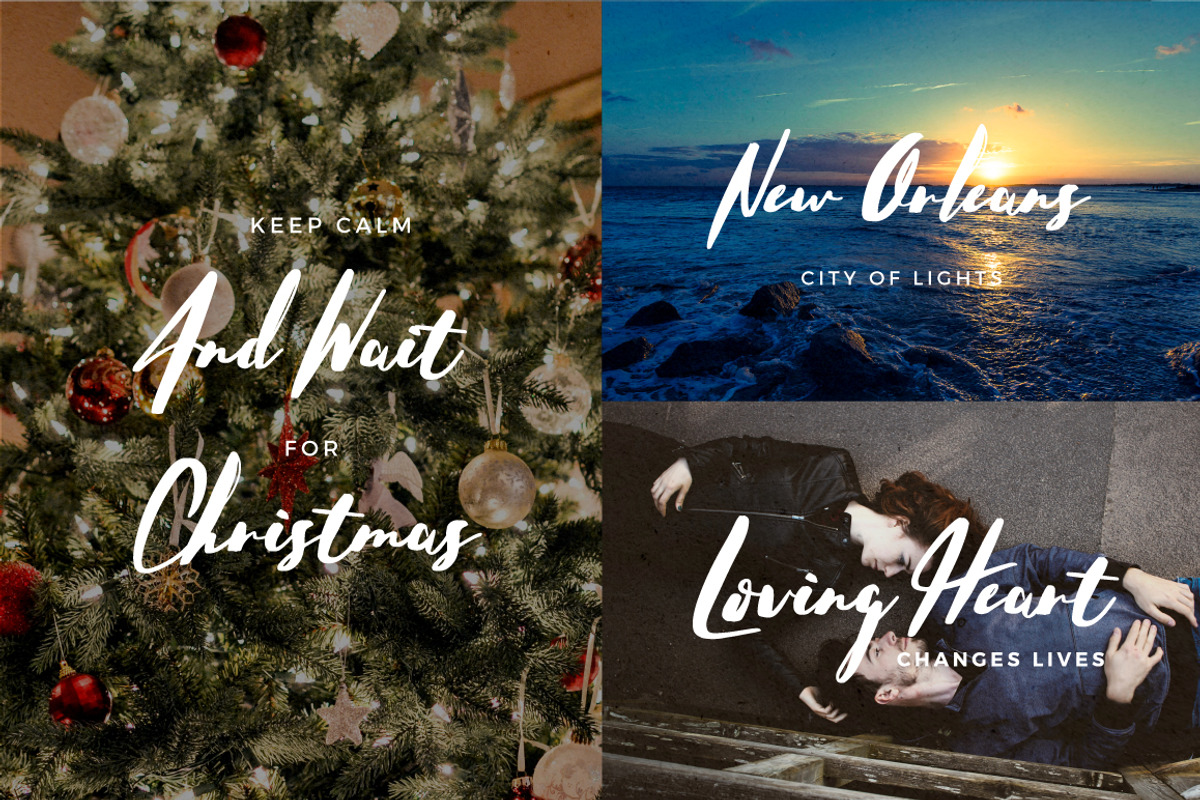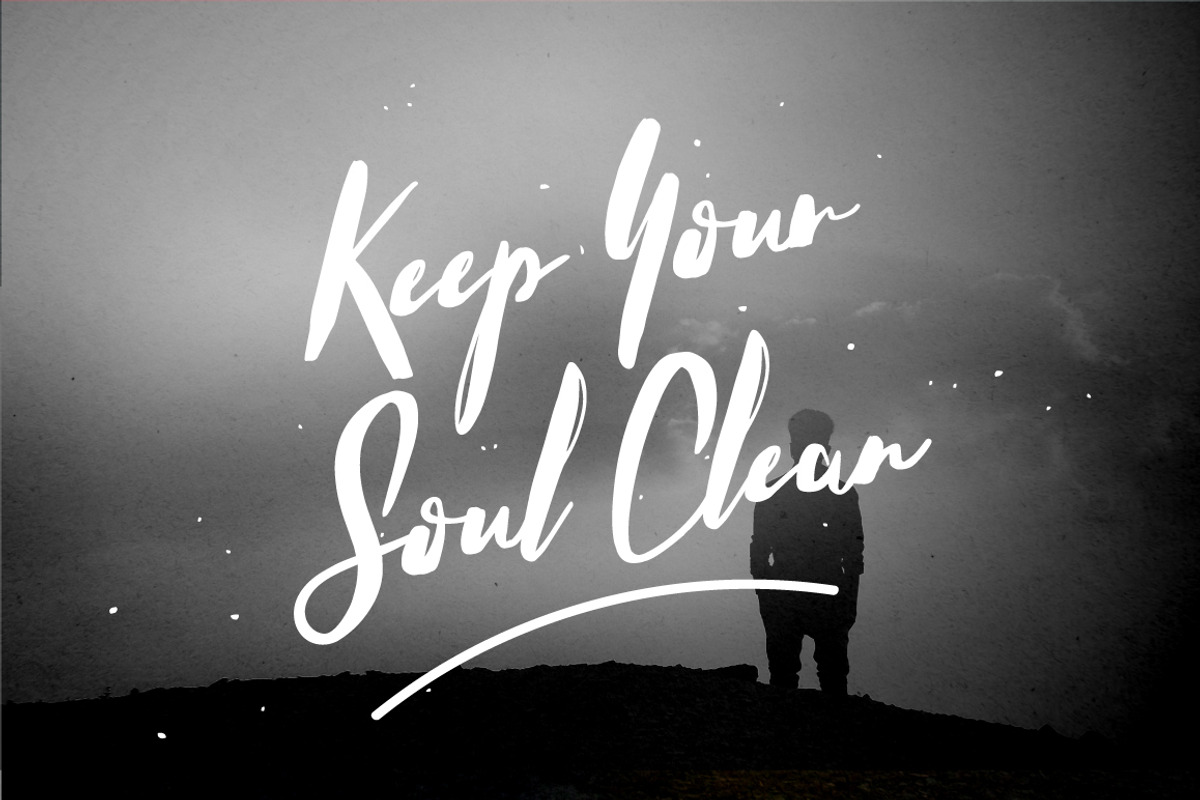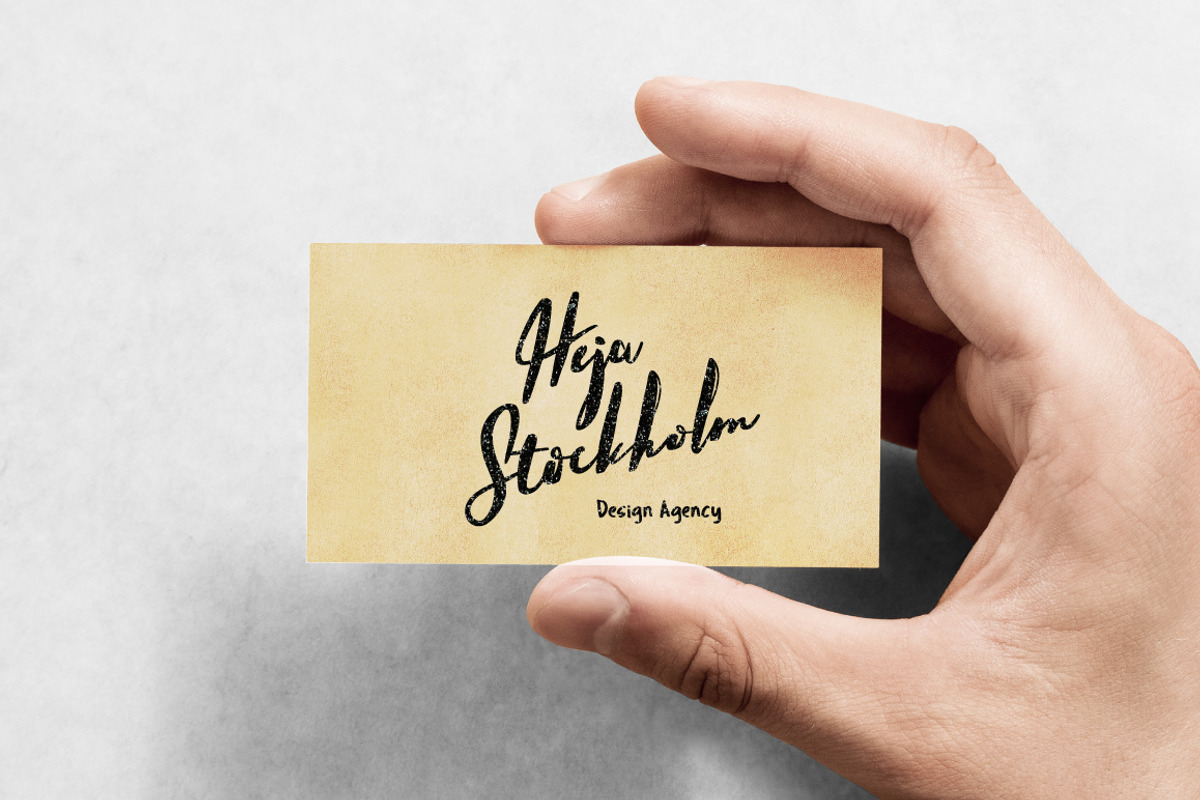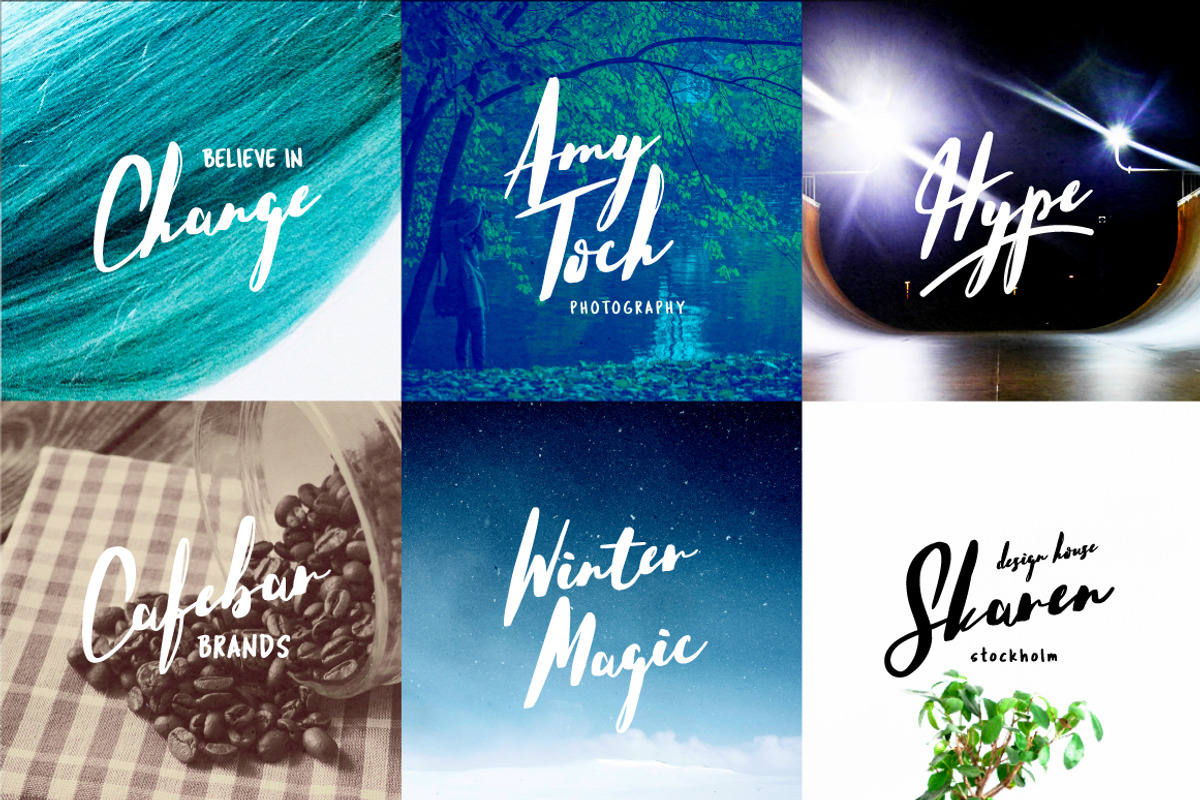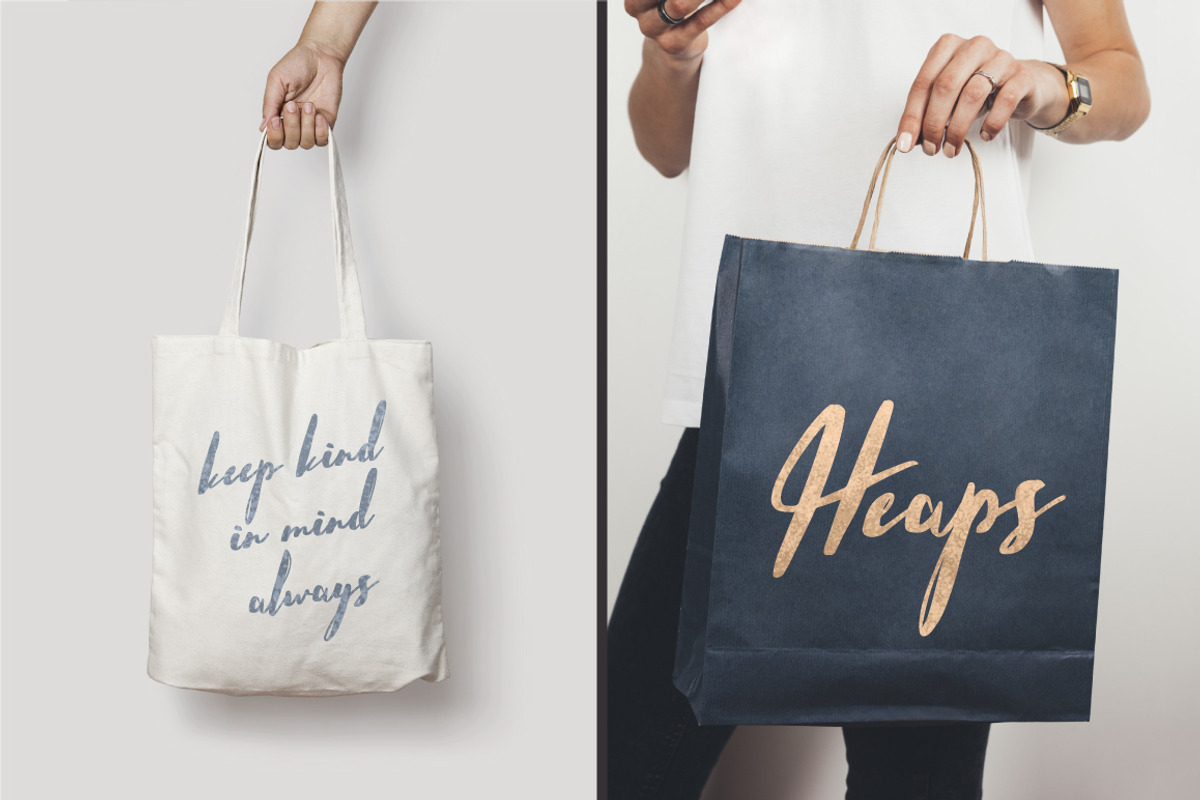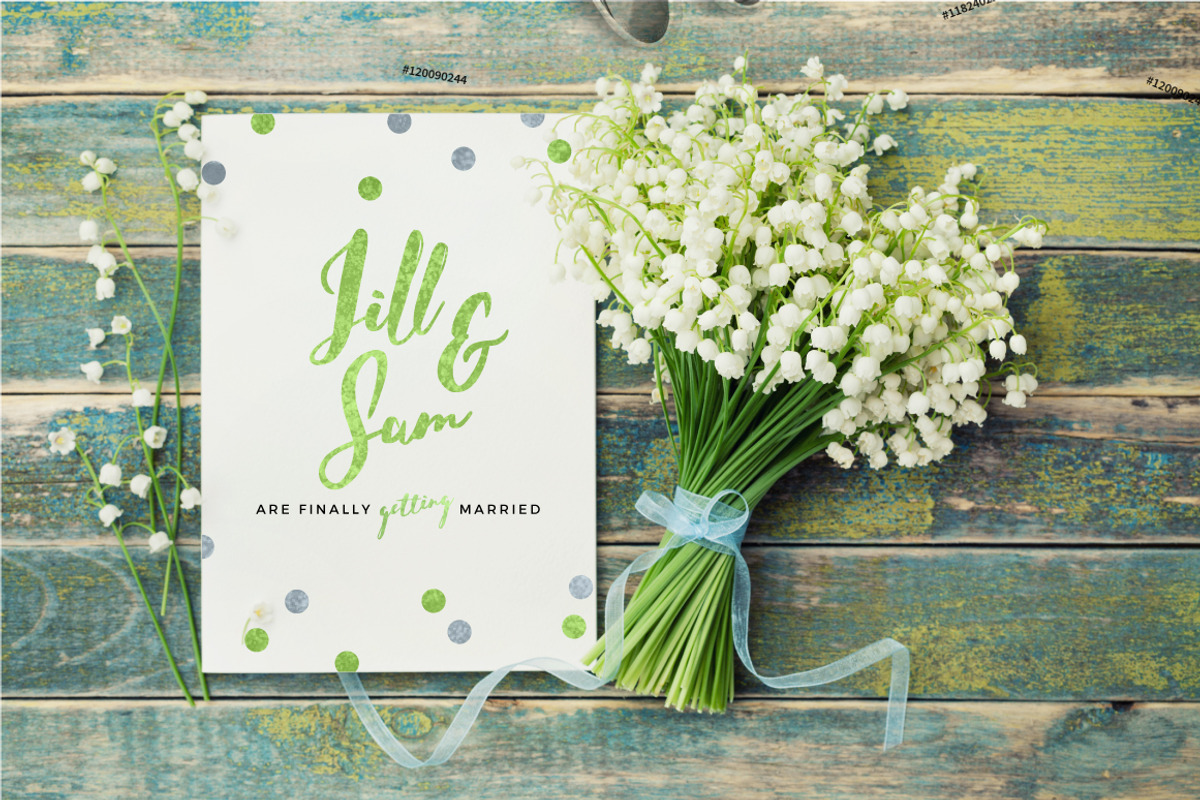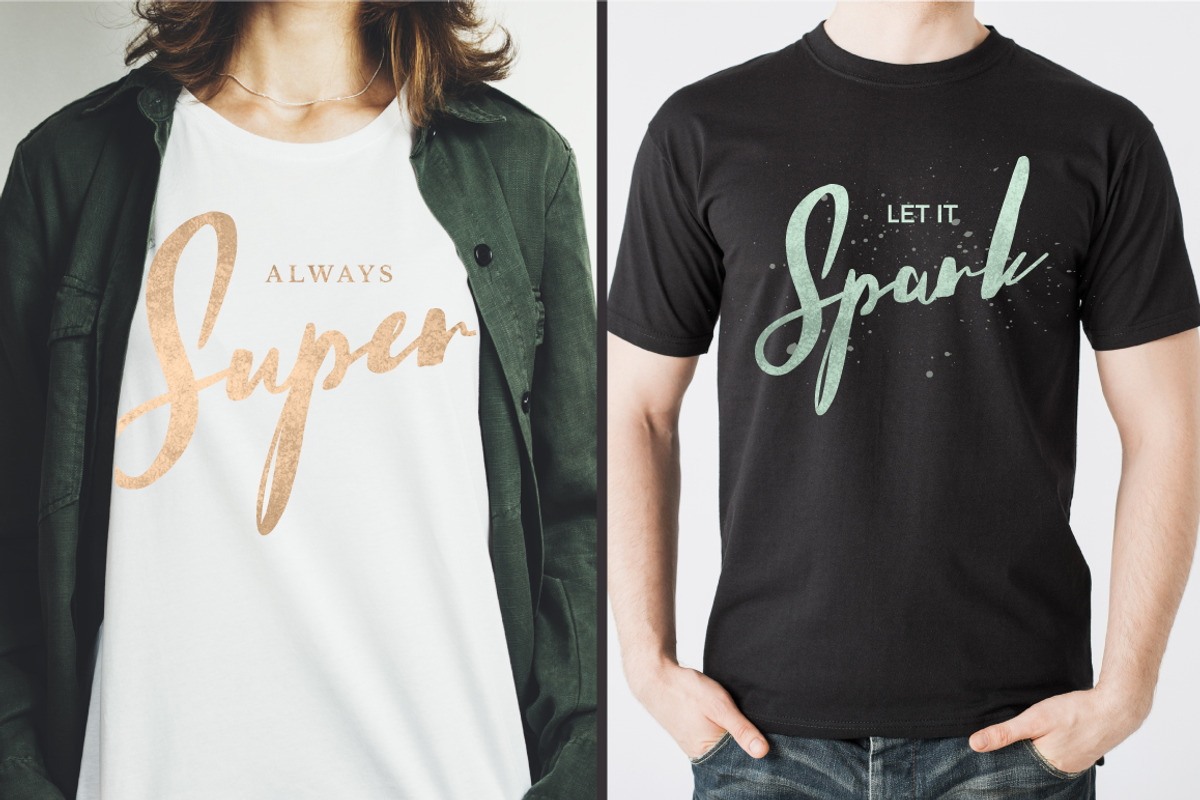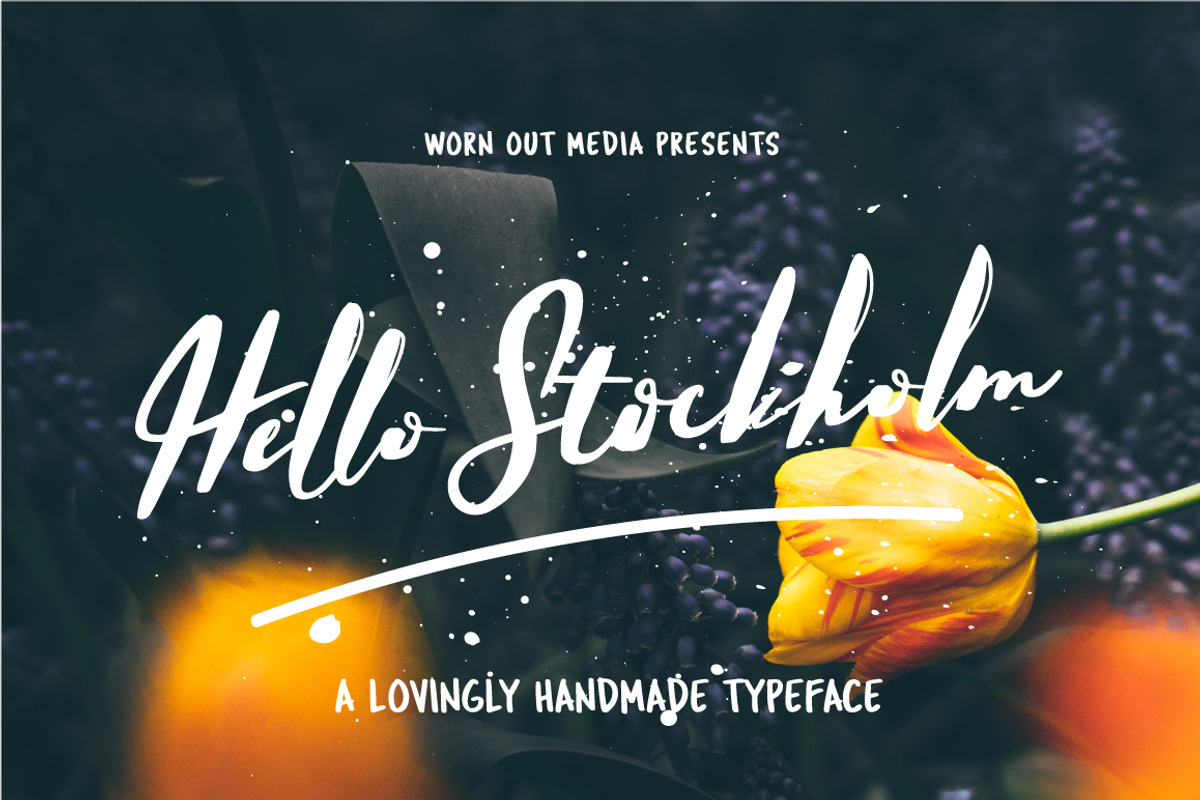
Hello Stockholm - Handmade Typeface
Hello Stockholm - Handmade Typeface by Mats-Peter Forss is a font selected for branding, posters, packaging, typography.
- Including uppercase and lowercase alternates as another font with a multilingual support also.
Why Hello Stockholm - Handmade Typeface is worth a look
Hello Stockholm - Handmade Typeface by Mats-Peter Forss fits naturally into Branding, posters, packaging, typography.